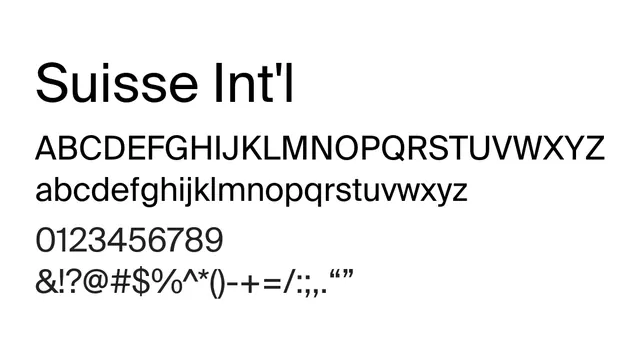
Suisse Int'l
A refined neo-grotesque sans-serif with Swiss design principles, offering excellent versatility and multilingual support for contemporary digital and print applications.
Excellent choice for UI, body text in web and editorial projects, and corporate branding. The balanced proportions and wide character set make it ideal for international projects and professional communication.
Works beautifully with serif partners like Garamond or with display-focused sans-serifs like Futura for hierarchy.